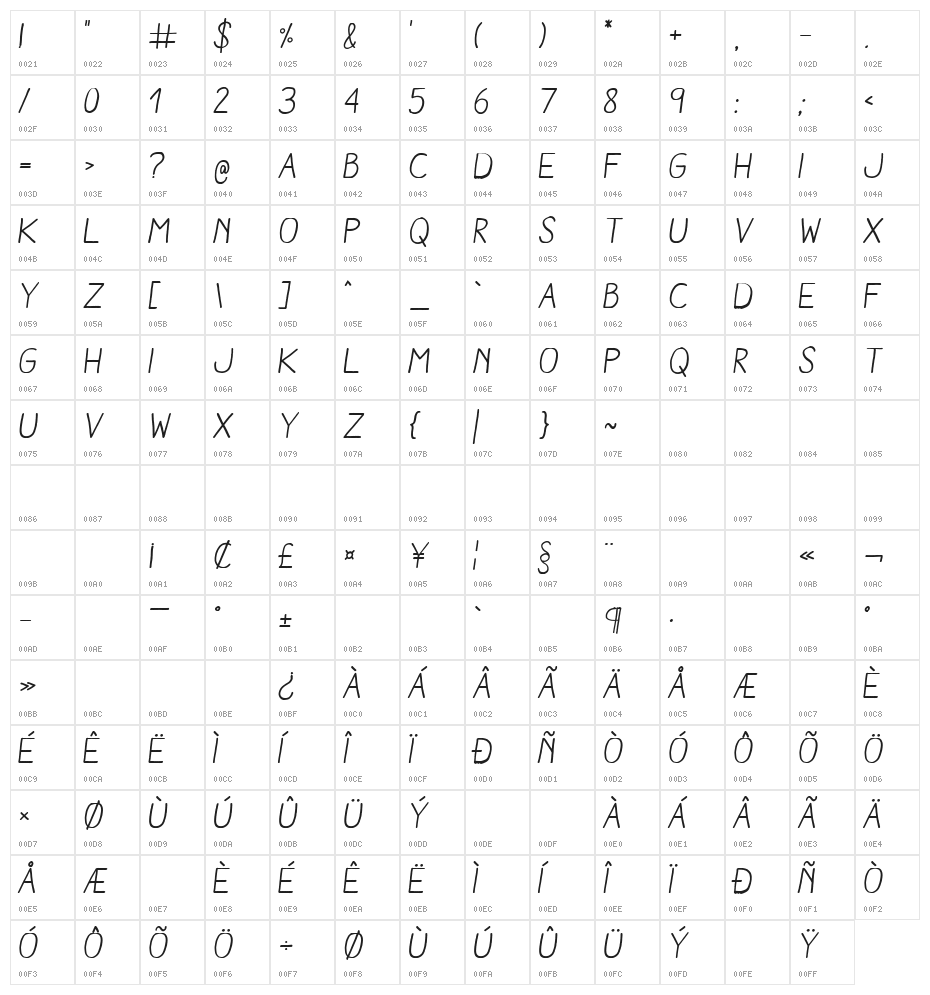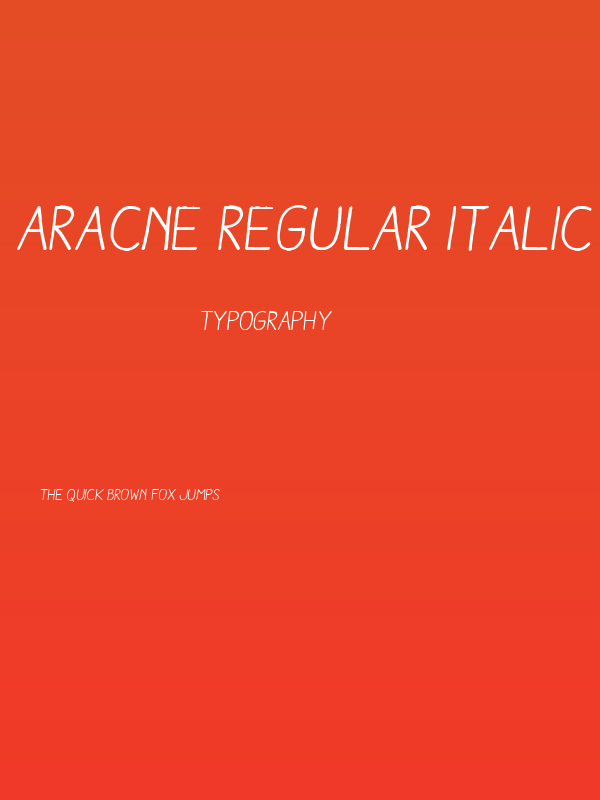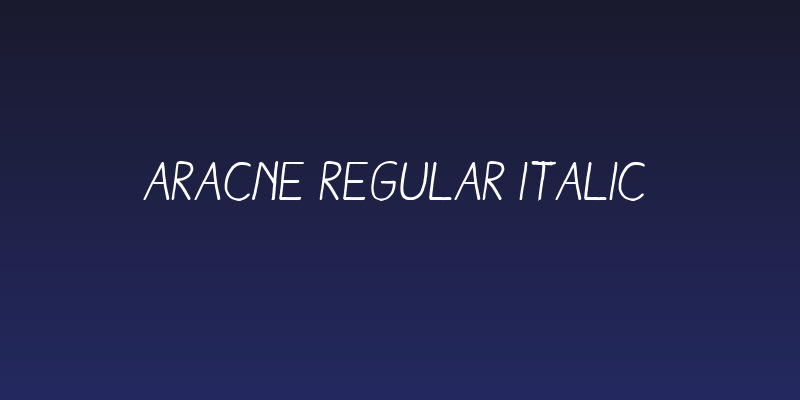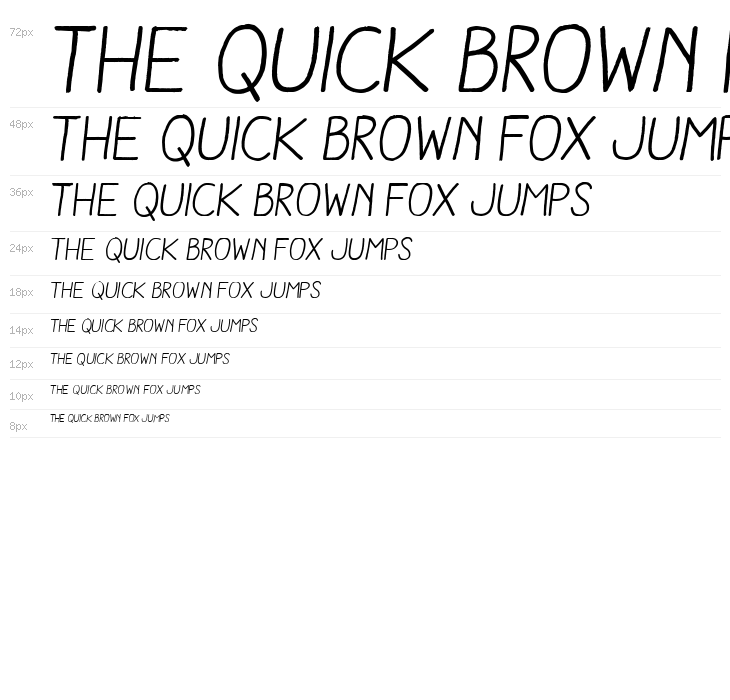
Aracne Regular Italic Font
Aracne Regular Italic Description
This font features a handwritten style with a casual and informal appearance. The letters are slightly slanted, giving it an italicized look, which adds a dynamic and lively feel. The strokes are consistent in thickness, providing a uniform and clean look. The characters are well-spaced, ensuring readability while maintaining a playful and approachable aesthetic. This font is versatile, suitable for projects that require a personal touch or a friendly, informal tone.
| Proposed Projects | Ideal for greeting cards, personal notes, informal invitations, and creative projects that benefit from a handwritten touch. |